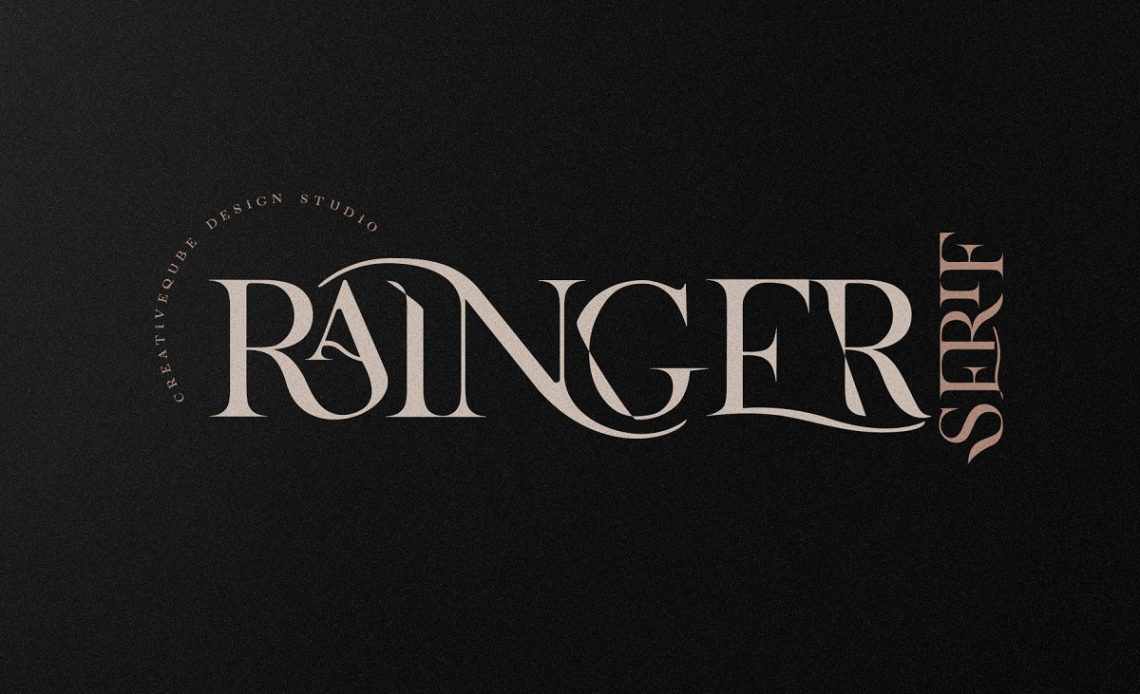
Introducing Rainger Serif Font, the epitome of modern decorative serifs! Created by the talented Lucy, this font is perfect for anyone looking to elevate their designs and captivate their audience. With its extensive collection of alternates and ligatures, Rainger Serif allows you to create stunning logos, inspiring quotes, elegant wedding invites, engaging blog posts, eye-catching Instagram posts, and so much more!
What sets Rainger Serif apart is its attention to detail. It includes a full set of lowercase and uppercase glyphs, along with extra glyphs for a wide range of letters. The font's meticulous kerning ensures that every letter combination is nothing short of amazing. And the best part? Swapping between alternates is a breeze! Simply select your letter and use the Character panel or Glyphs panel to effortlessly switch to your desired alternate. Voila! Your design is instantly transformed.